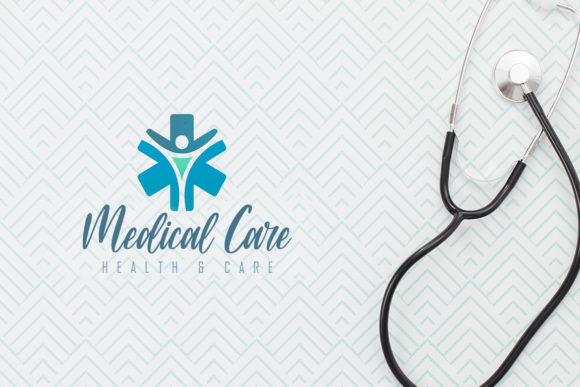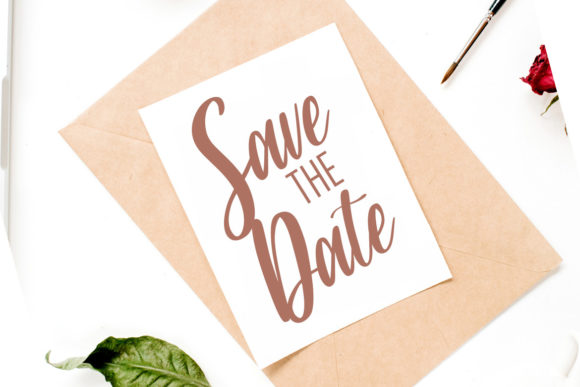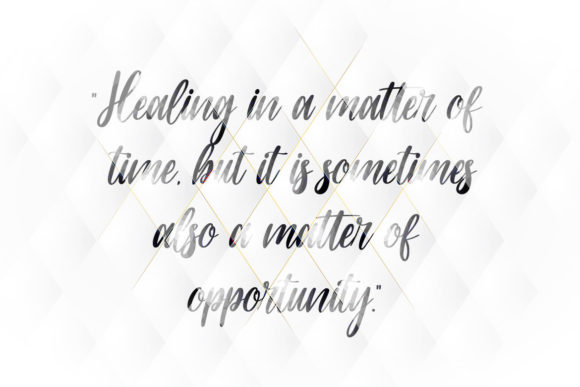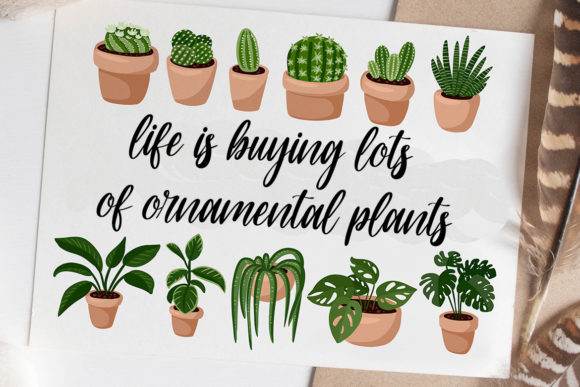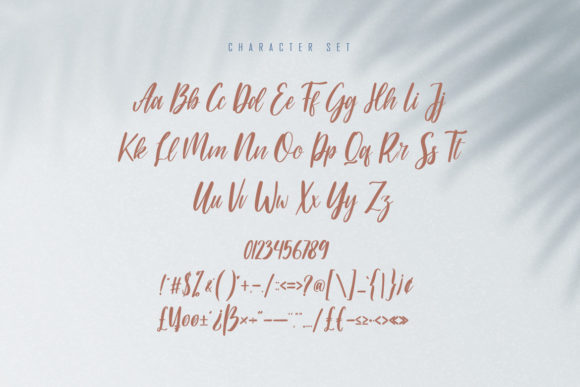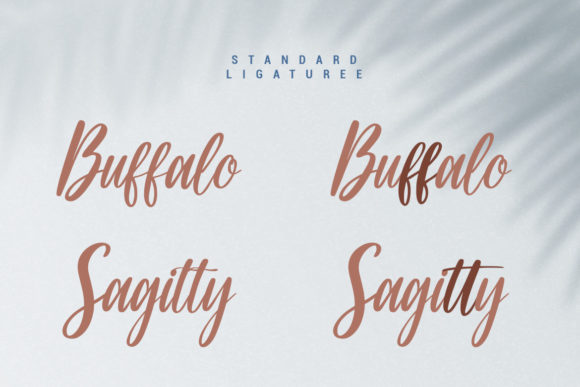
Introducing Belatty Font: The Elegant and Dainty Handwritten Font
Are you a designer or crafter looking for a unique and elegant font to elevate your creative projects? Look no further than Belatty Font, a beautiful handwritten font that features sweet and delicate swashes. With its original look, Belatty is perfect for a wide range of crafty ideas, from letterheads and titles to stationery and more.
What Makes Belatty Font Special?
Belatty Font is a one-of-a-kind, elegant, and dainty handwritten font that is sure to capture the hearts of designers and crafters alike. Its sweet and delicate swashes add a touch of sophistication and whimsy, making it perfect for projects that require a personal and creative touch. Whether you’re designing a letterhead, creating a title, or crafting a stationery set, Belatty Font is the perfect choice.
Key Features of Belatty Font
• Elegant and Dainty: Belatty Font features a delicate and elegant design that is perfect for creating sophisticated and refined projects.
• Sweet and Delicate Swashes: The font’s sweet and delicate swashes add a touch of whimsy and playfulness, making it perfect for creative projects.
• Handwritten: Belatty Font is a handwritten font, giving it a personal and unique touch that sets it apart from other fonts.
• Versatile: Belatty Font is perfect for a wide range of crafty ideas, from letterheads and titles to stationery and more.
Belatty Font is a must-have for designers and crafters who want to add a touch of elegance and sophistication to their projects. With its unique and delicate design, Belatty Font is perfect for:
• Letterheads: Create professional and elegant letterheads that make a lasting impression.
• Titles: Add a touch of whimsy and playfulness to your titles with Belatty Font’s sweet and delicate swashes.
• Stationery: Create beautiful and unique stationery sets that are perfect for personal or business use.
• Branding: Use Belatty Font to create a unique and recognizable brand identity that sets you apart from the competition.
Tips for Using Belatty Font
To get the most out of Belatty Font, here are a few tips to keep in mind:
• Use it sparingly: Belatty Font is a delicate font, so use it sparingly to avoid overwhelming your design.
• Pair it with other fonts: Pair Belatty Font with other fonts to create a unique and interesting contrast.
• Experiment with sizes: Experiment with different font sizes to create visual interest and hierarchy.
In conclusion, Belatty Font is a beautiful and elegant handwritten font that is perfect for designers and crafters who want to add a touch of sophistication and whimsy to their projects. With its sweet and delicate swashes, Belatty Font is perfect for a wide range of crafty ideas, from letterheads and titles to stationery and more. So why wait? Download Belatty Font today and start creating your own unique and beautiful projects!